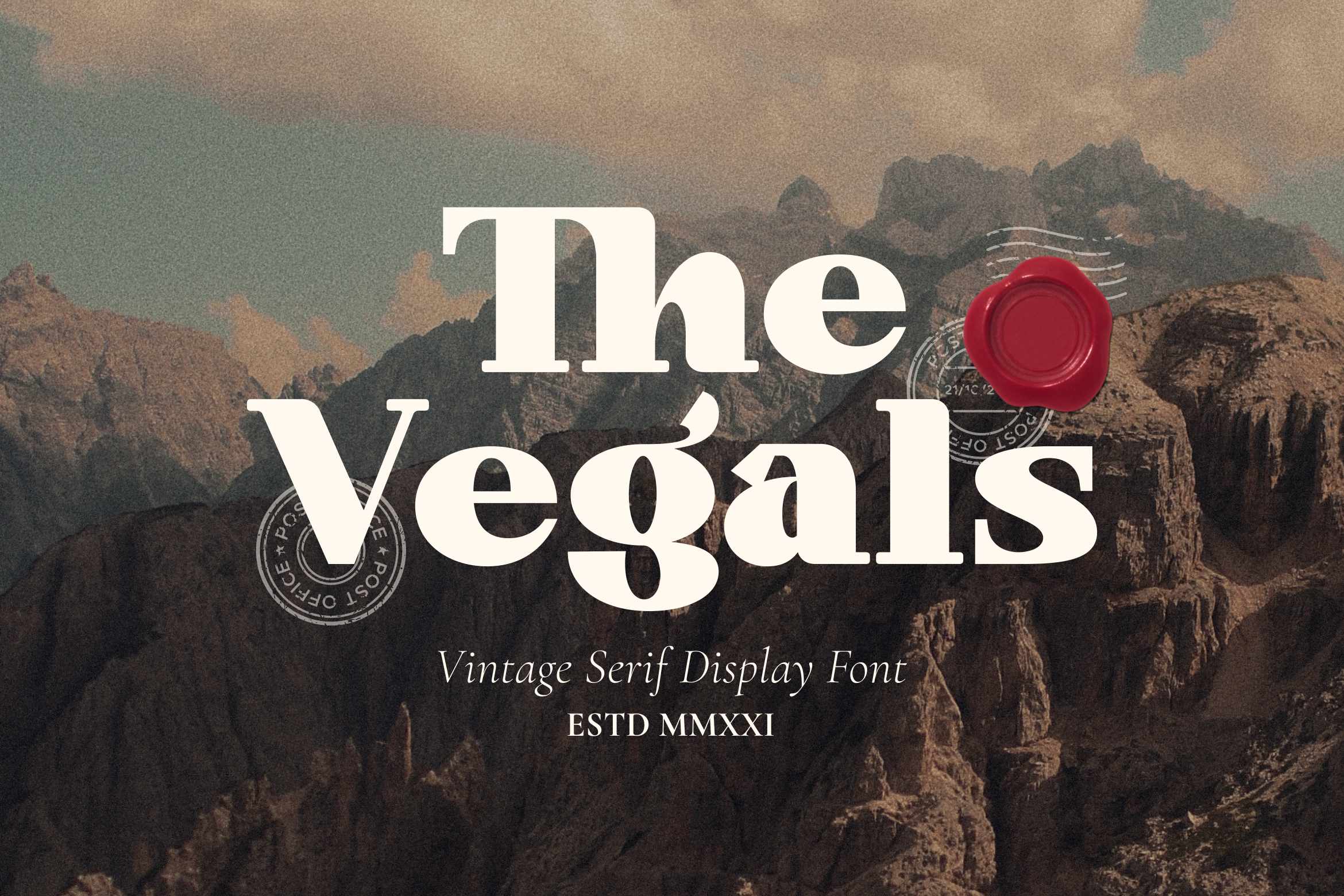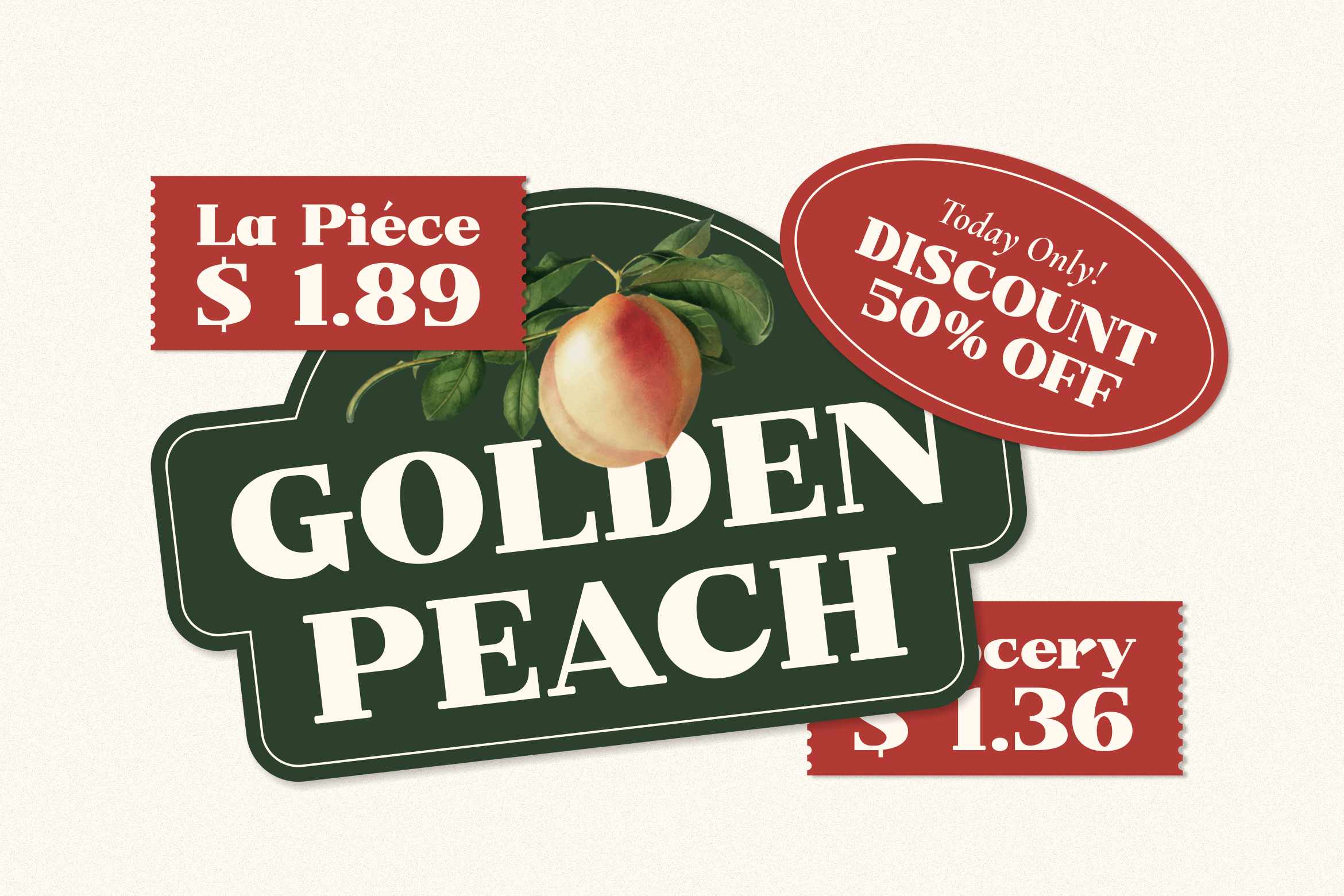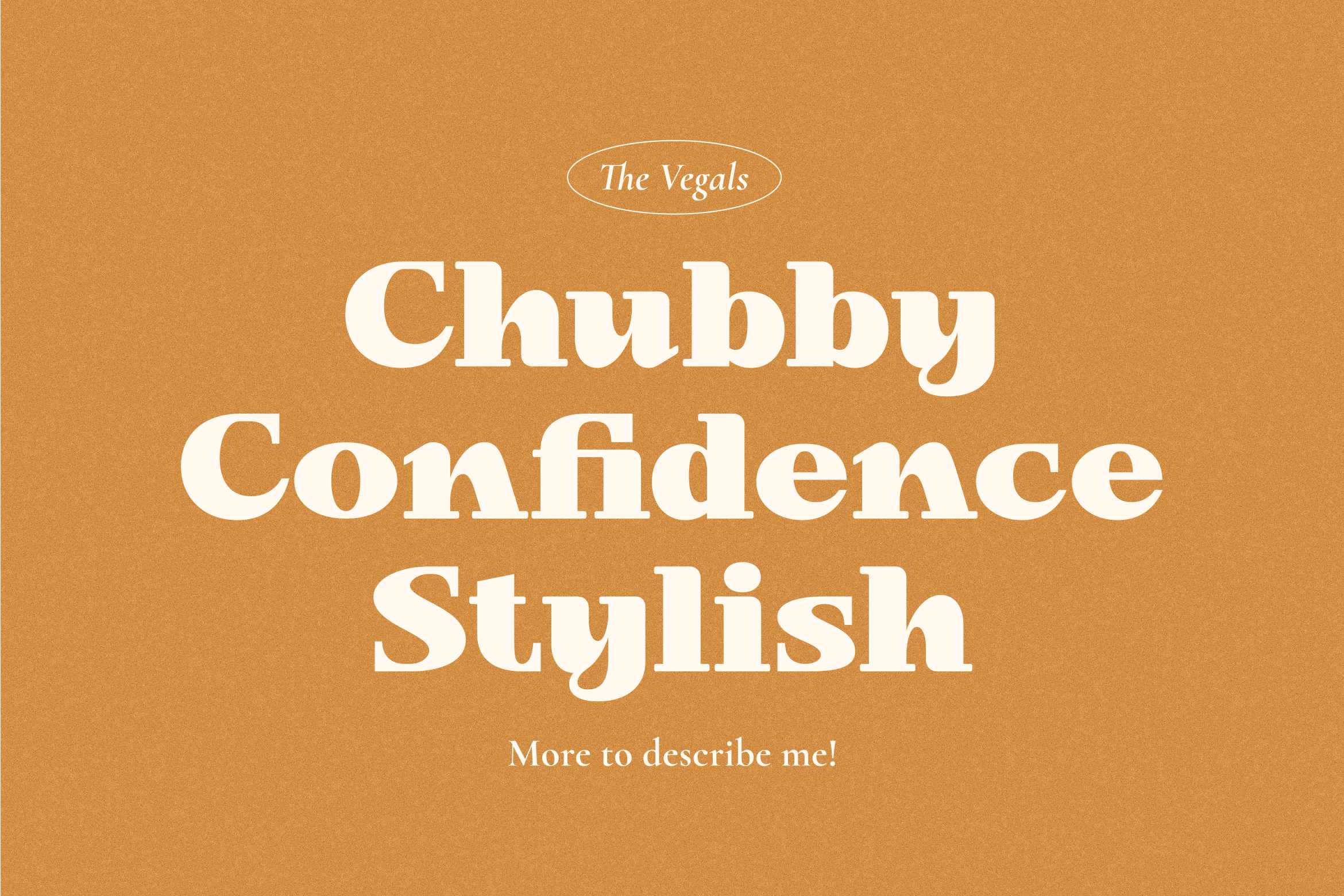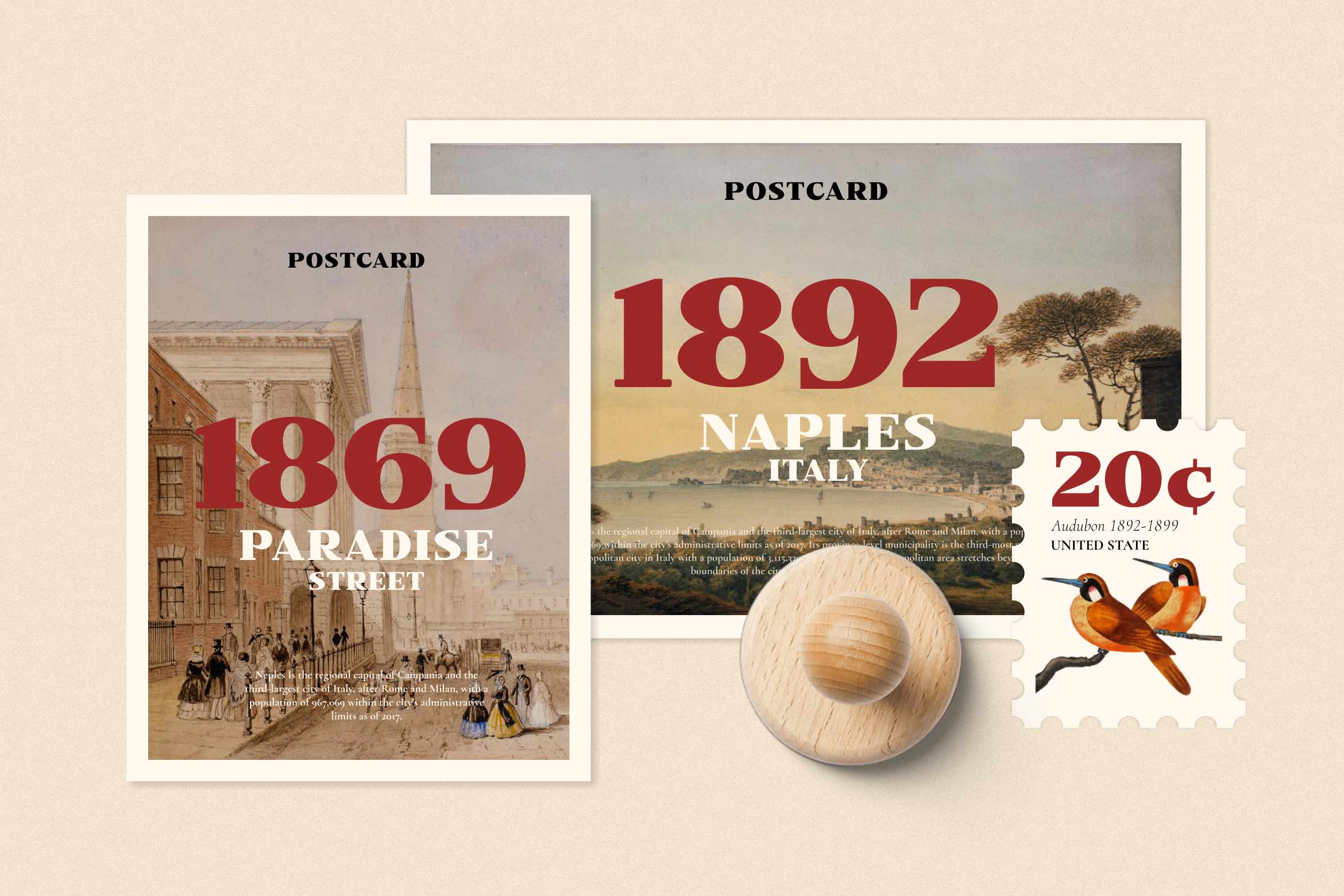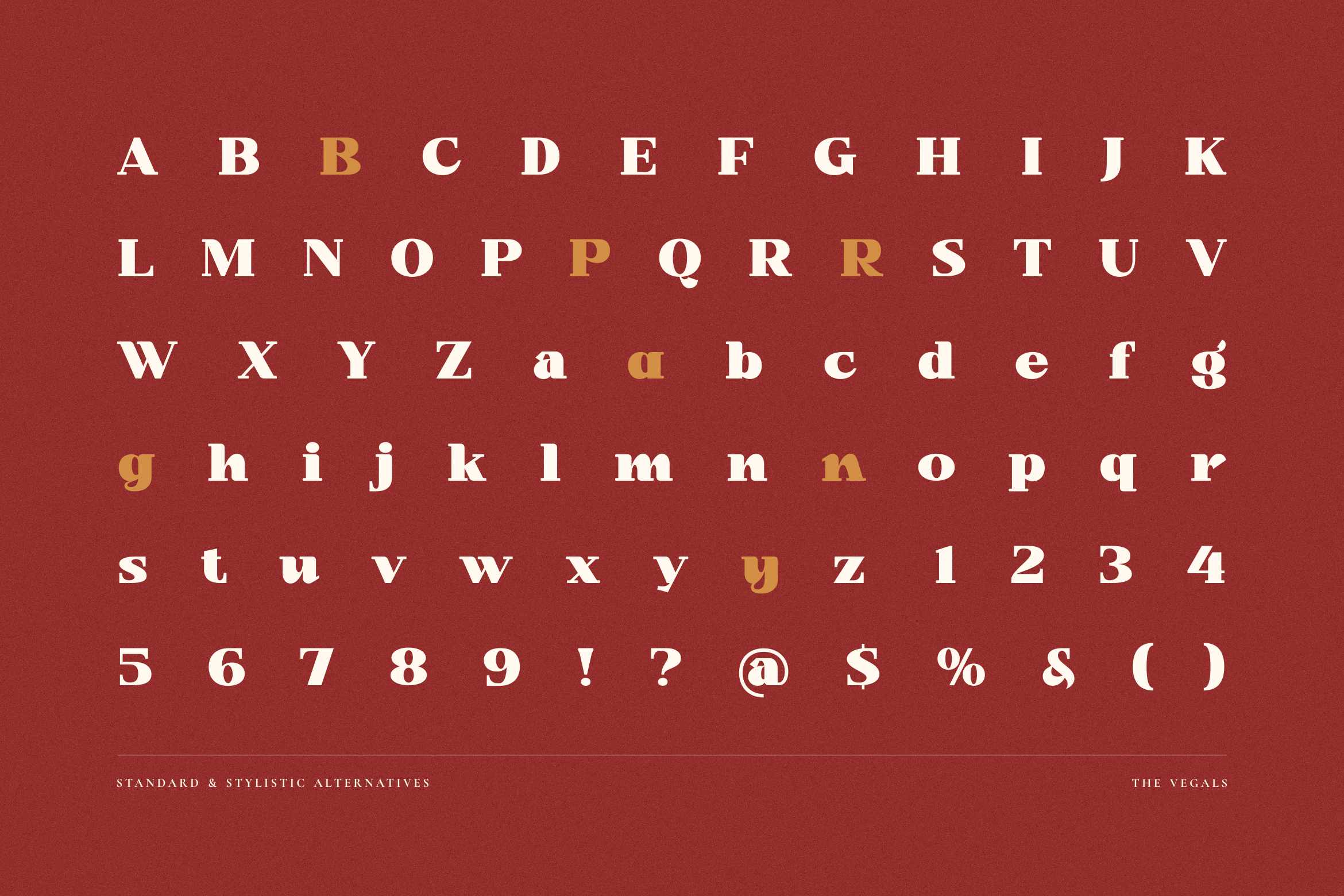
The Vegals
The Vegals is a bold and charming vintage serif font that brings a warm retro character into modern designs. With strong letterforms, high contrast strokes, and unique terminals, this font radiates a confident and nostalgic aesthetic, making it ideal for branding, packaging, and editorial layouts.
Designed to capture attention while retaining legibility, The Vegals includes a set of stylistic alternates and multilingual support to enrich creative possibilities. Whether you’re crafting vintage-themed labels, boutique logos, or stylized headlines, this font delivers both charm and impact with ease.